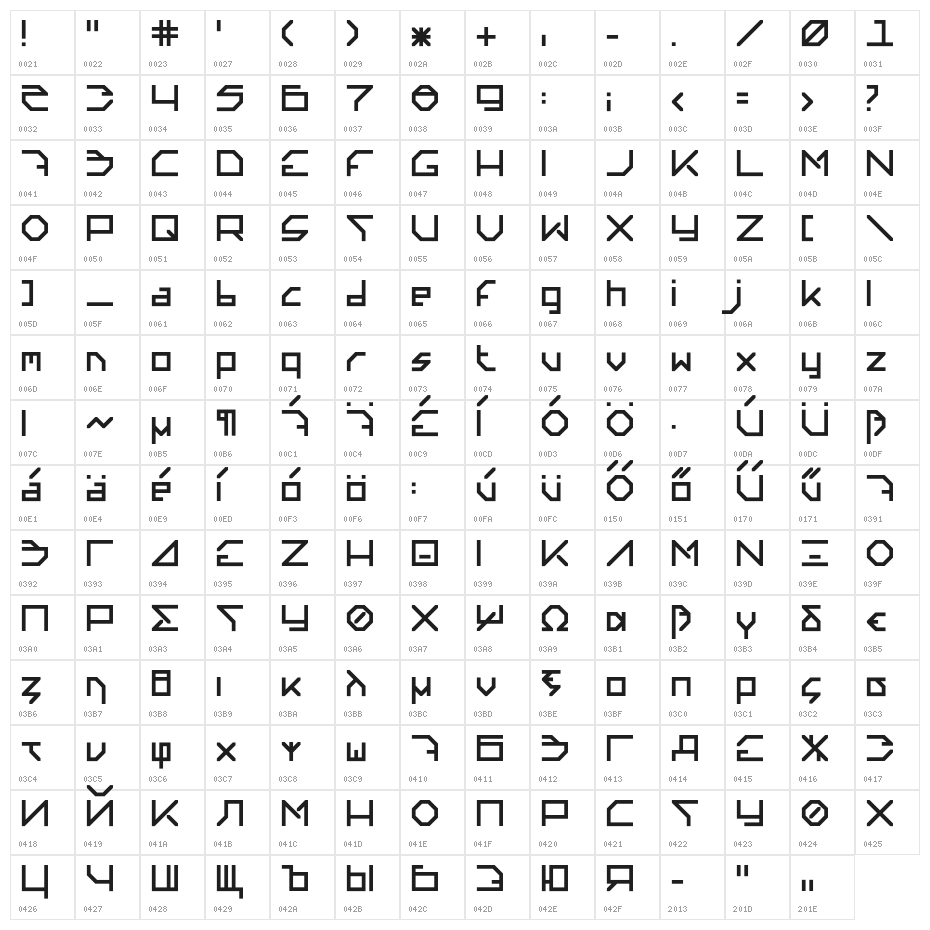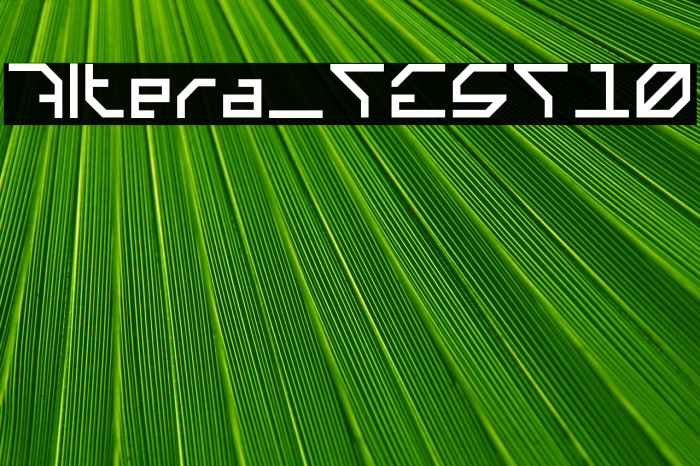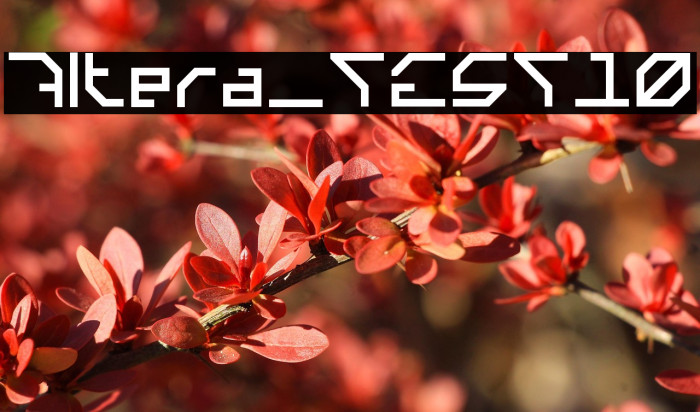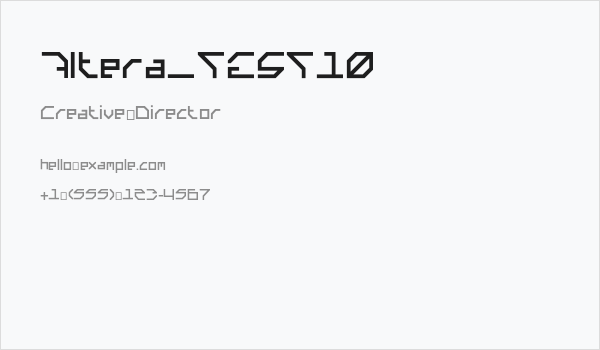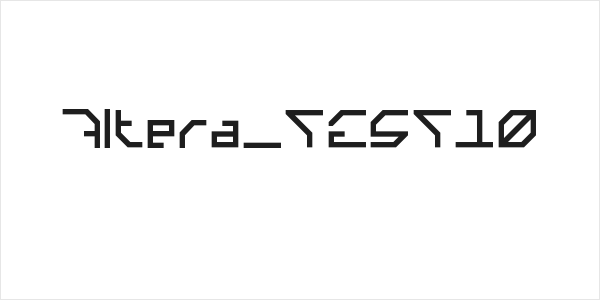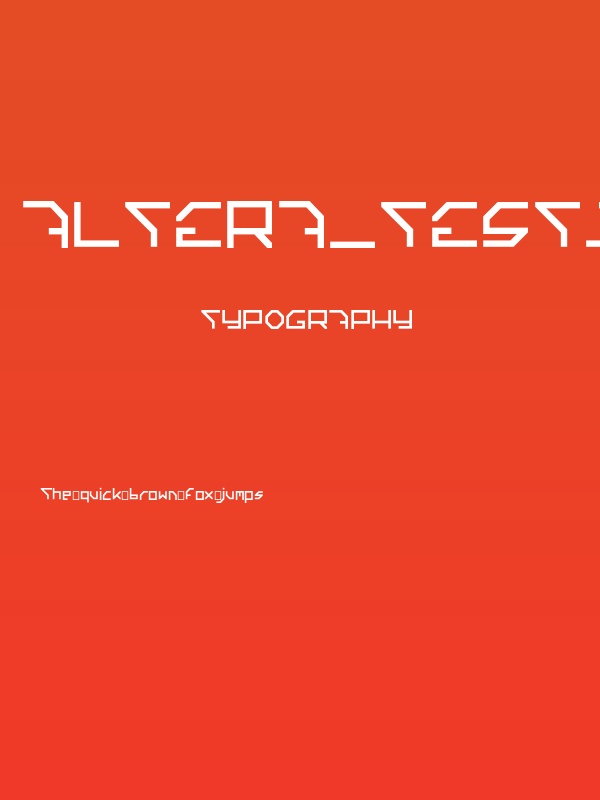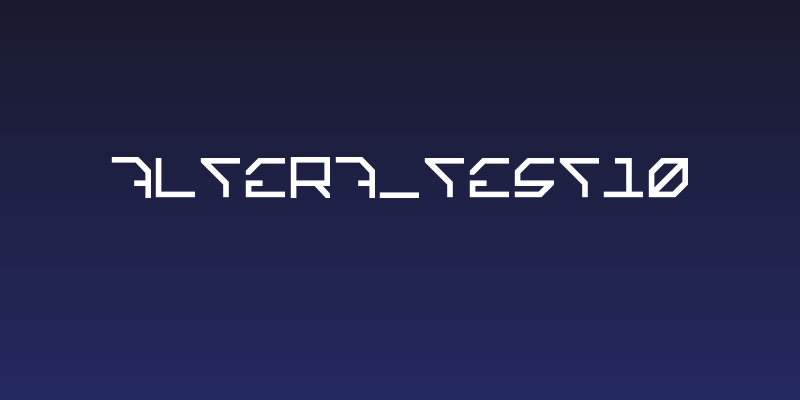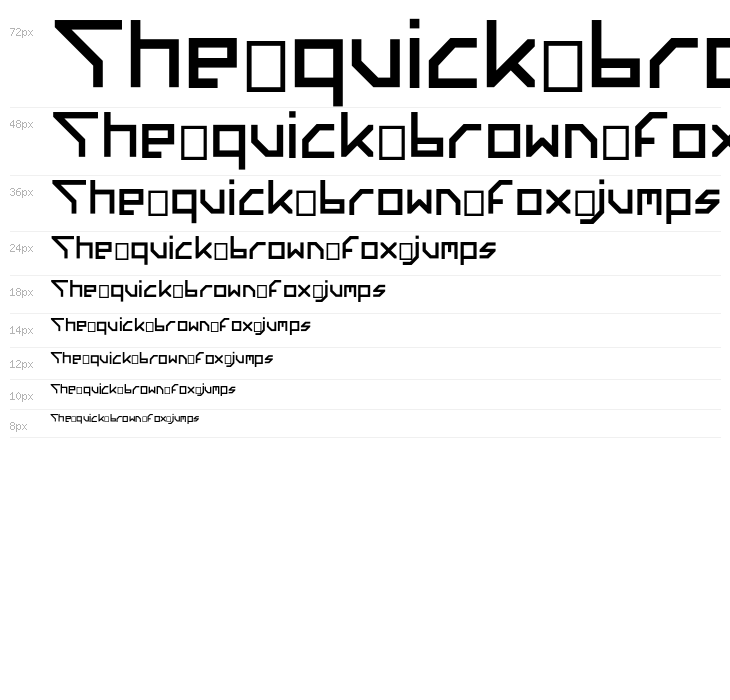
Altera_TEST10 Font
Altera_TEST10 Description
This font features a geometric and futuristic design, characterized by its angular and blocky letterforms. The uppercase and lowercase letters maintain a consistent style, with sharp edges and a uniform stroke width that gives it a modern and technical appearance. The numerals and special characters follow the same design principles, ensuring a cohesive look across all glyphs. The font's unique style makes it stand out, suitable for projects that require a bold and innovative visual impact.
| Proposed Projects | Ideal for technology branding, sci-fi themed designs, video game interfaces, and modern posters. |